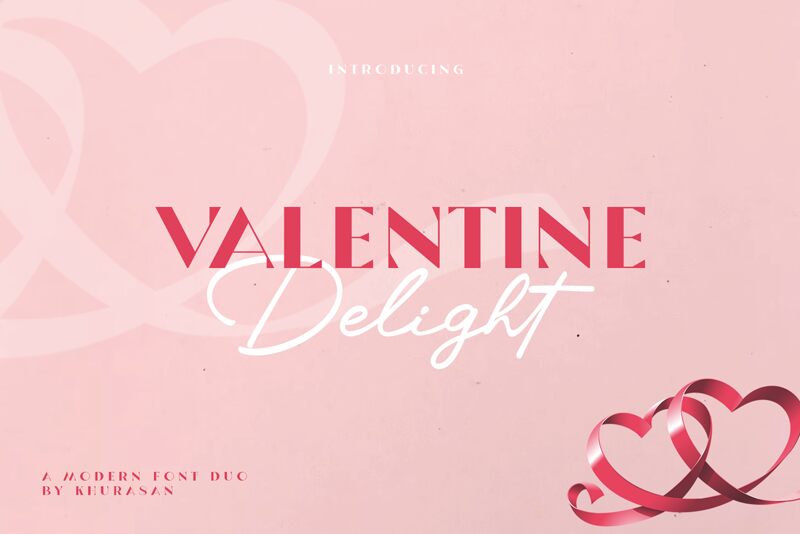
Valentine Delight Script font family is a beautifully handwritten free font family designed by Khurasan. Inspired by Valentine’s Day, this duo fonts product displays a romantic and elegant look that makes it suitable for most sophisticated tasks. It comes in two complementary and contrasting styles that you can layer or use side by side in your projects. The main script typeface is expressive and inviting, making it the perfect font idea for occasions that need to feel special and enticing.
Valentine Delight is an excellent choice of free font for contemporary use in wedding invitations, event branding, digital marketing, card design, and more. There is no limit to how your creativity can employ this free resource to take your work to the next level.